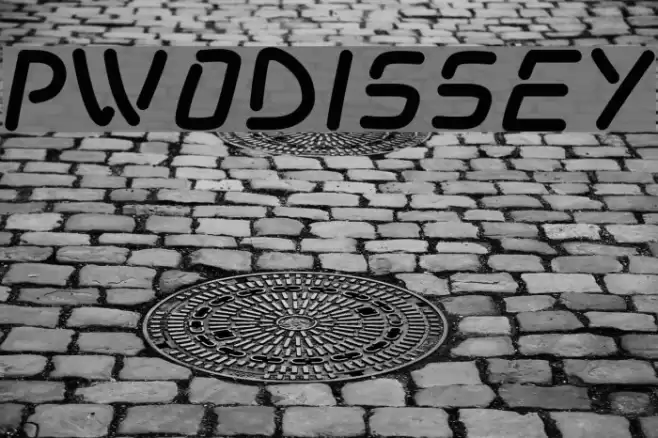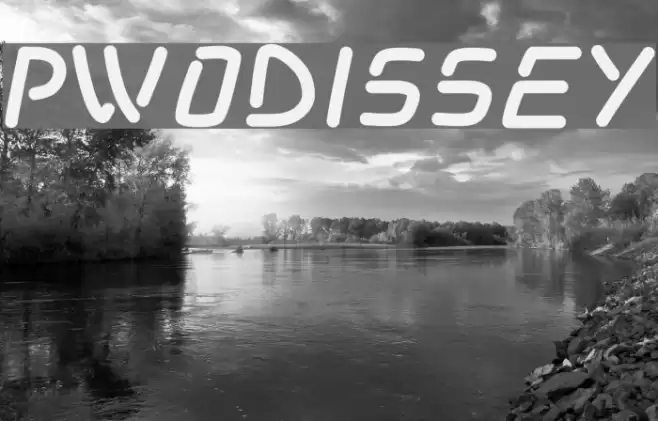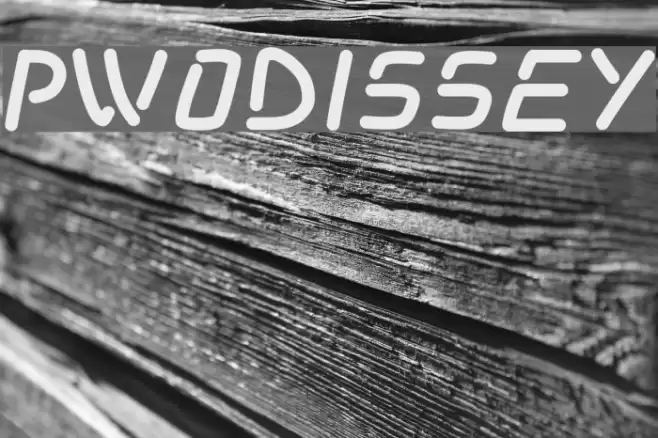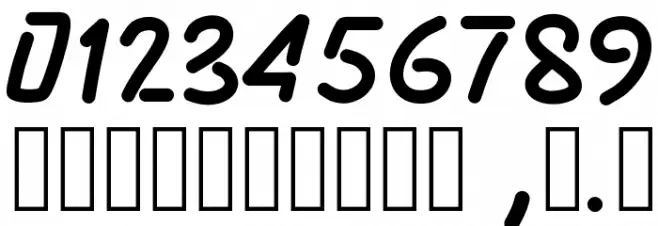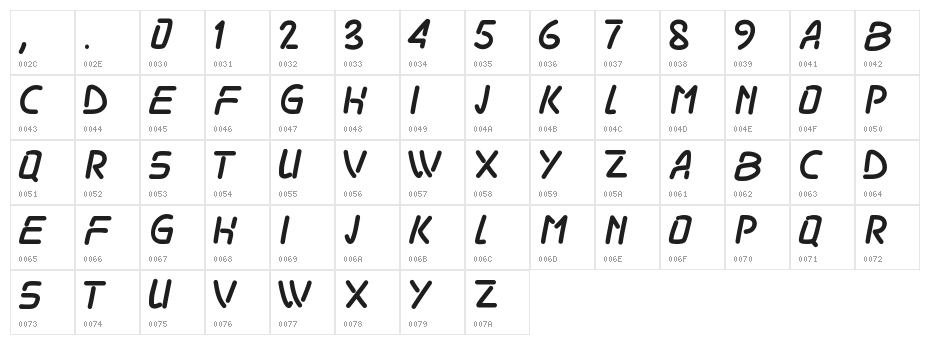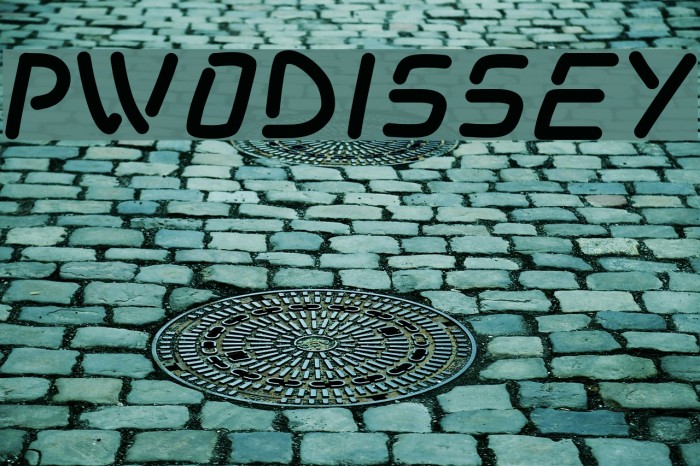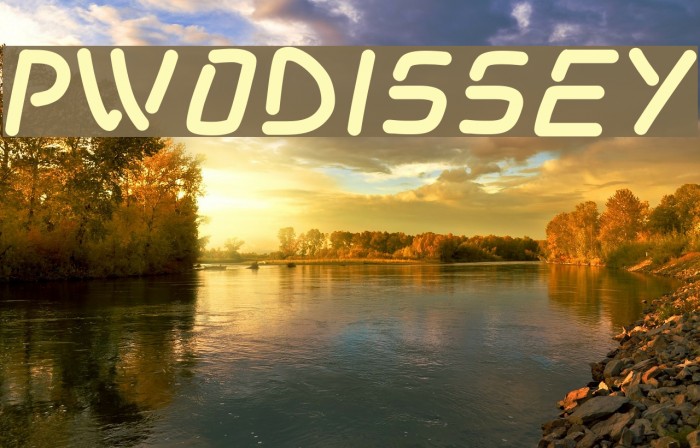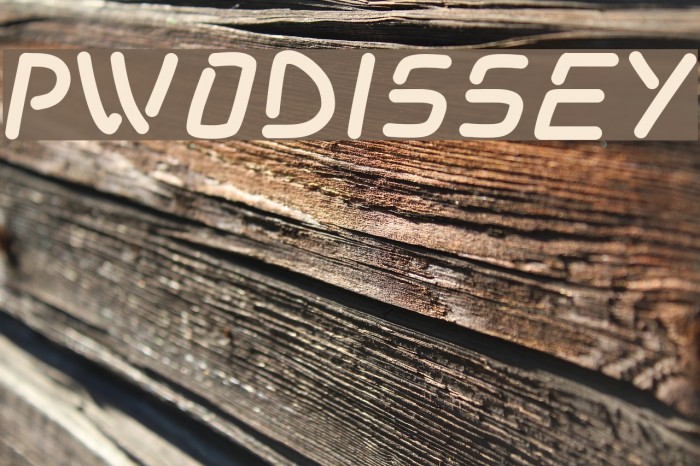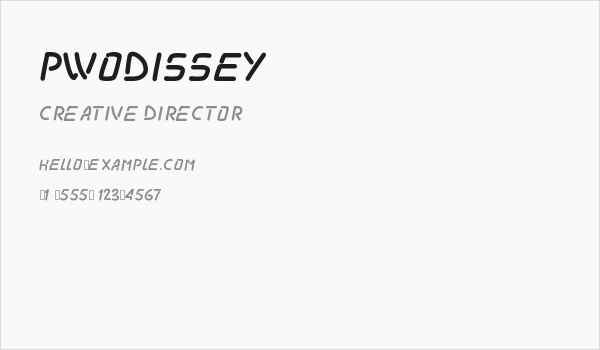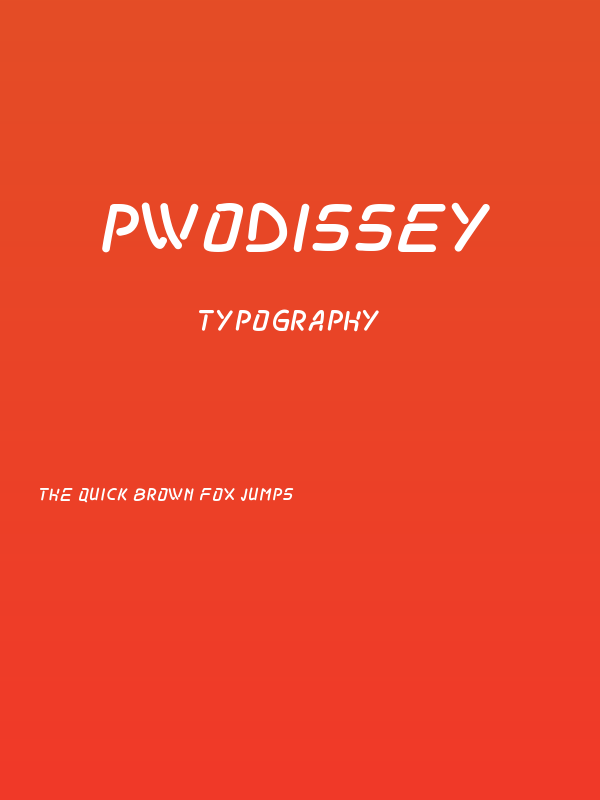
PWOdissey Font
PWOdissey Description
This font features a modern, rounded style with a futuristic touch. The characters are bold and slightly condensed, with smooth curves and a consistent stroke width. The uppercase and lowercase letters maintain a uniform appearance, enhancing readability while adding a sleek, contemporary feel. The numerals are distinct and align well with the overall design, making them suitable for digital displays. Special characters are included, maintaining the same stylistic approach, ensuring versatility across various applications.
A modern, rounded font with a futuristic and bold design from Uncategorized fonts.
- Proposed Projects: Ideal for technology branding, digital interfaces, futuristic posters, and modern advertising campaigns.
- Use Case: Headlines, Logos, Digital displays